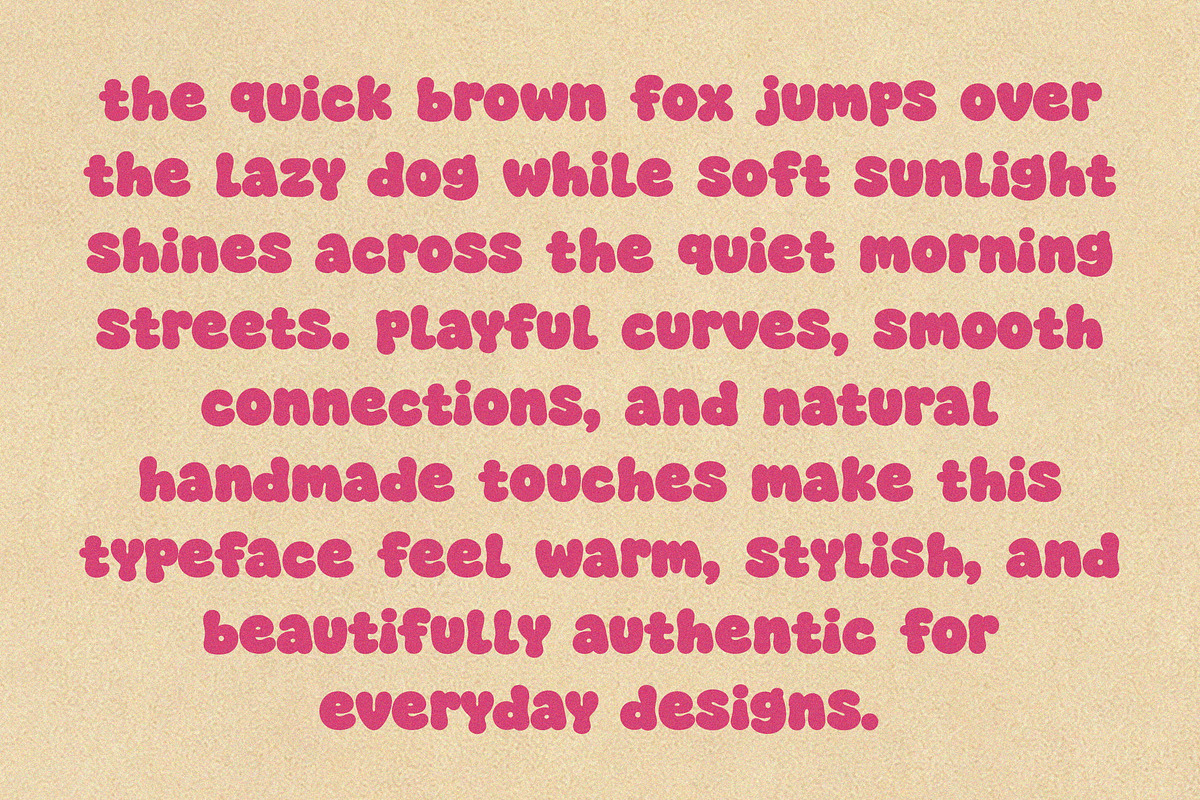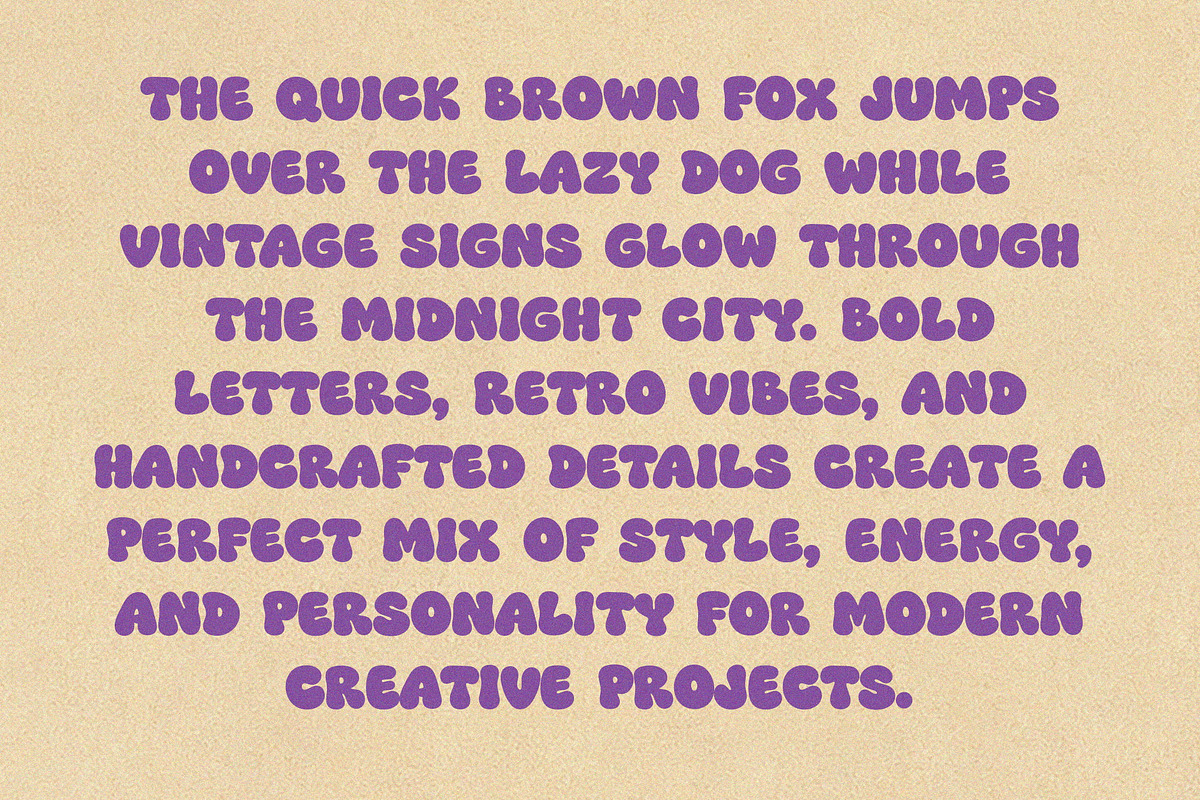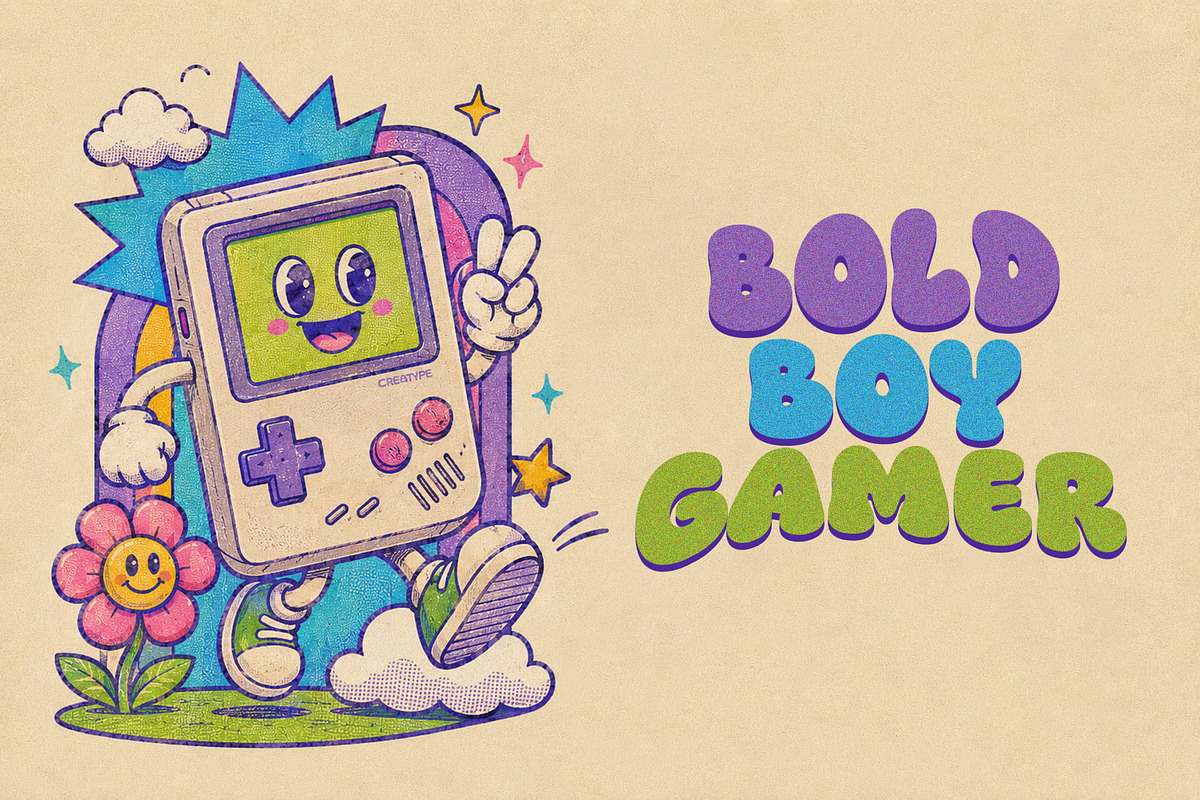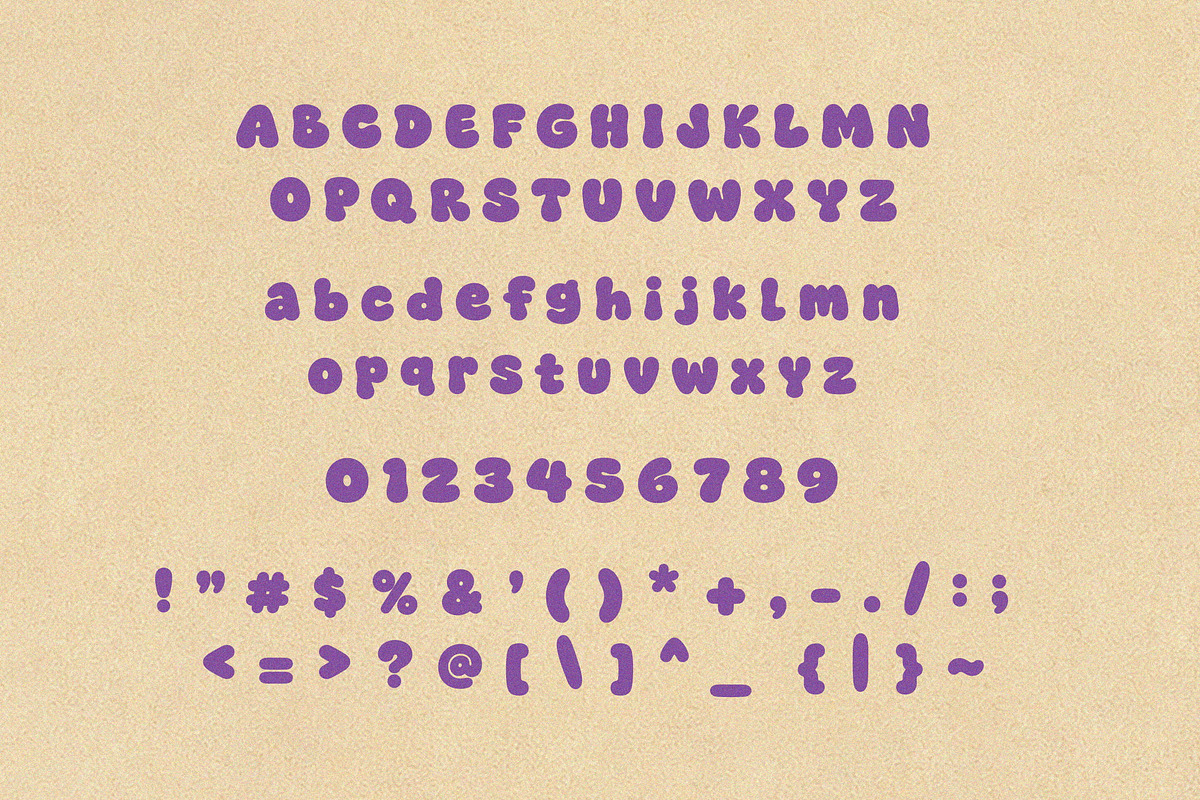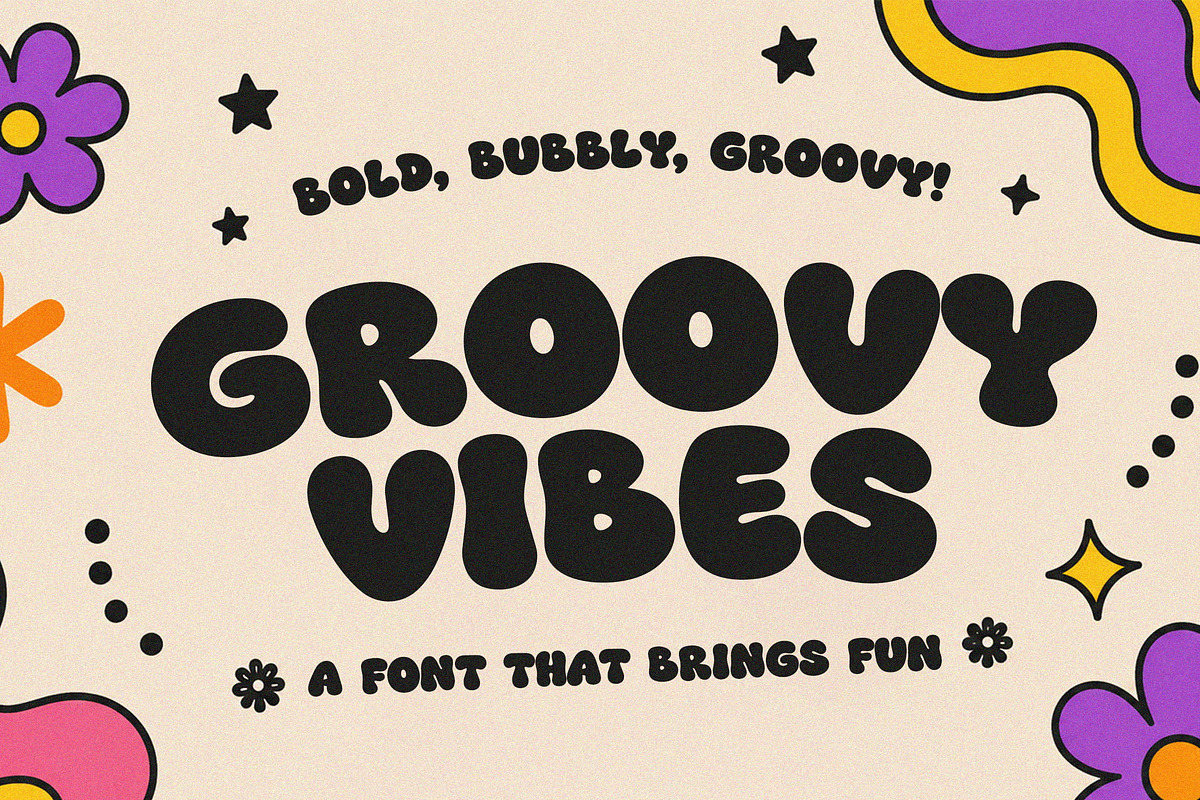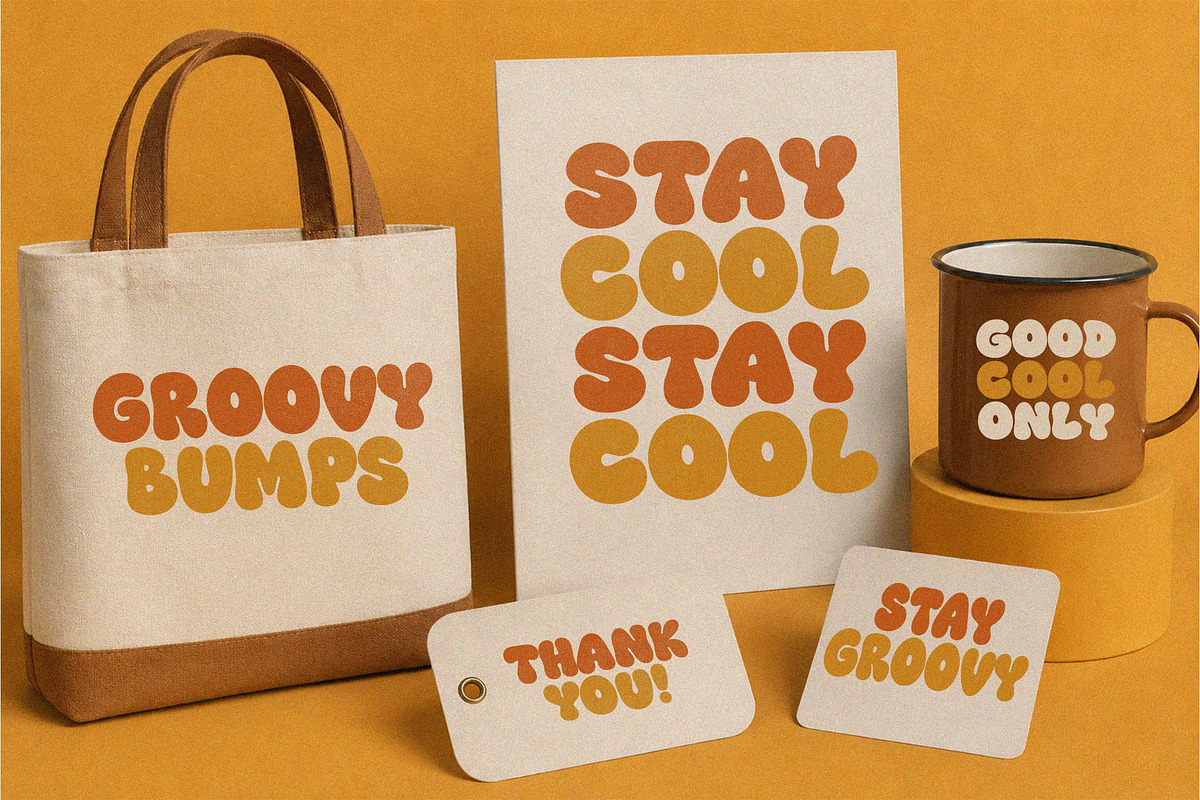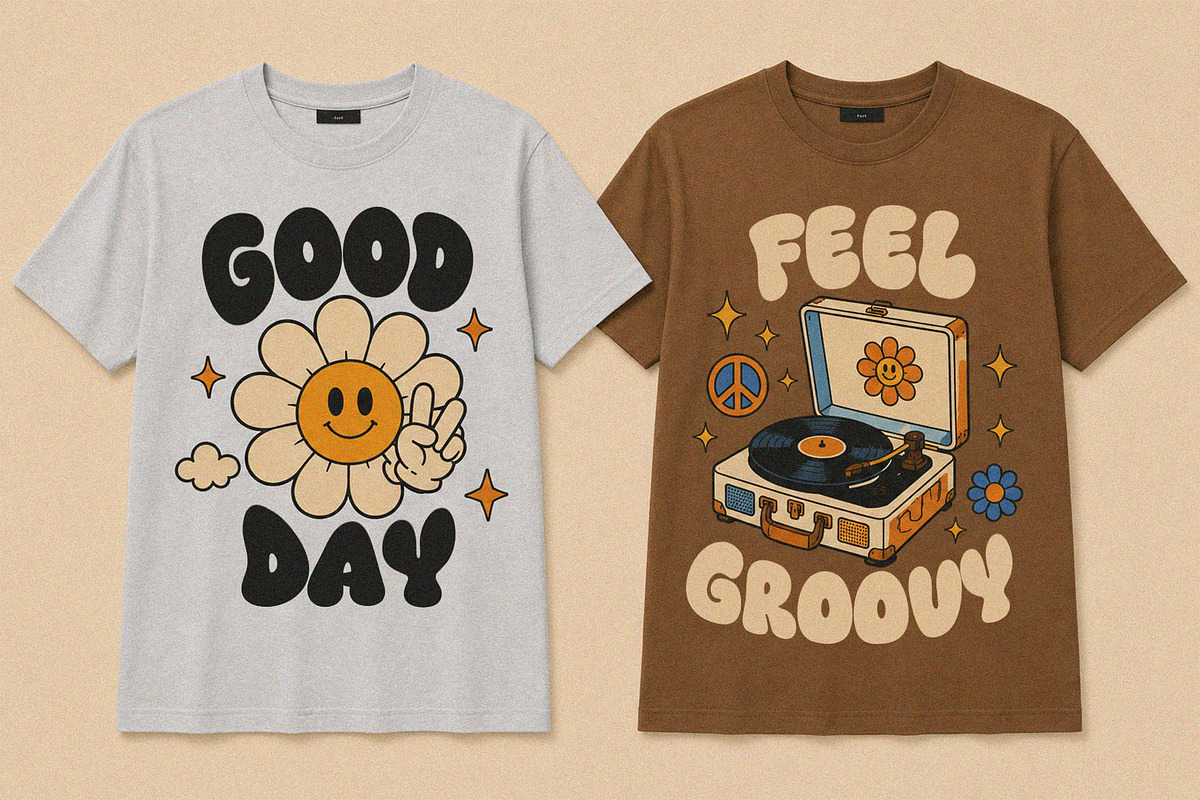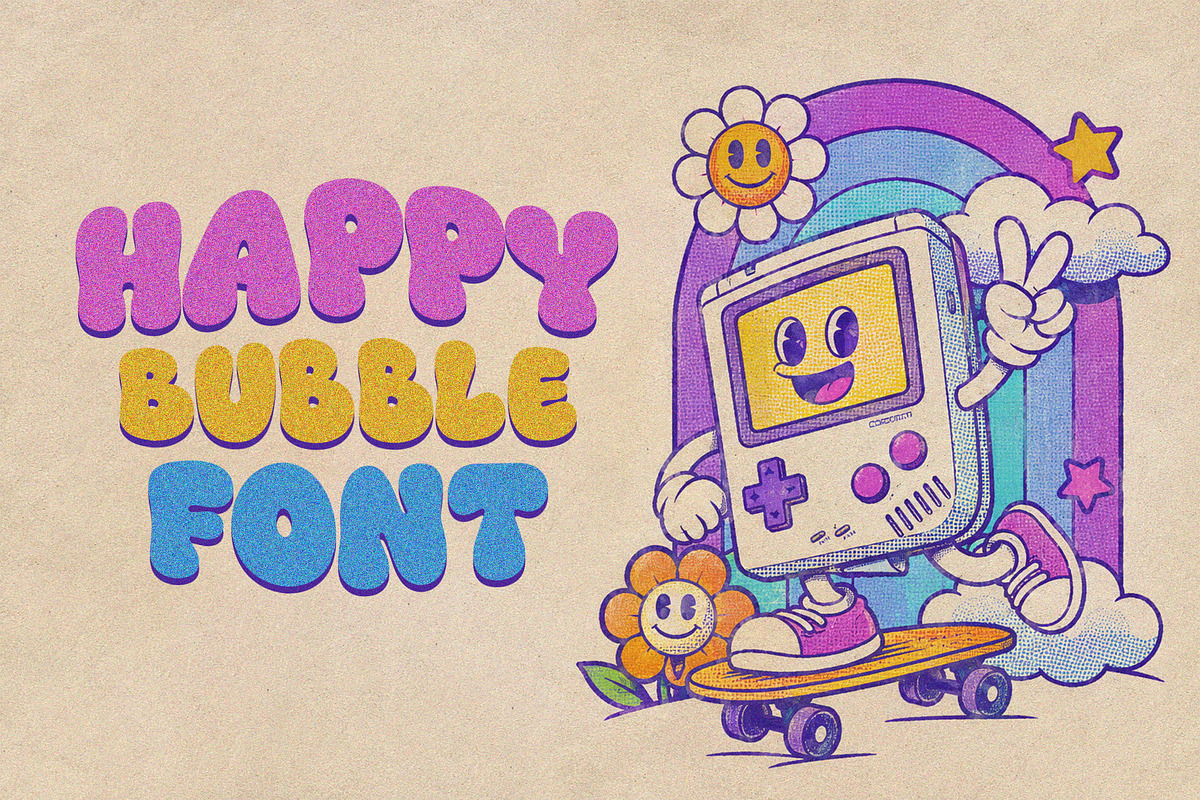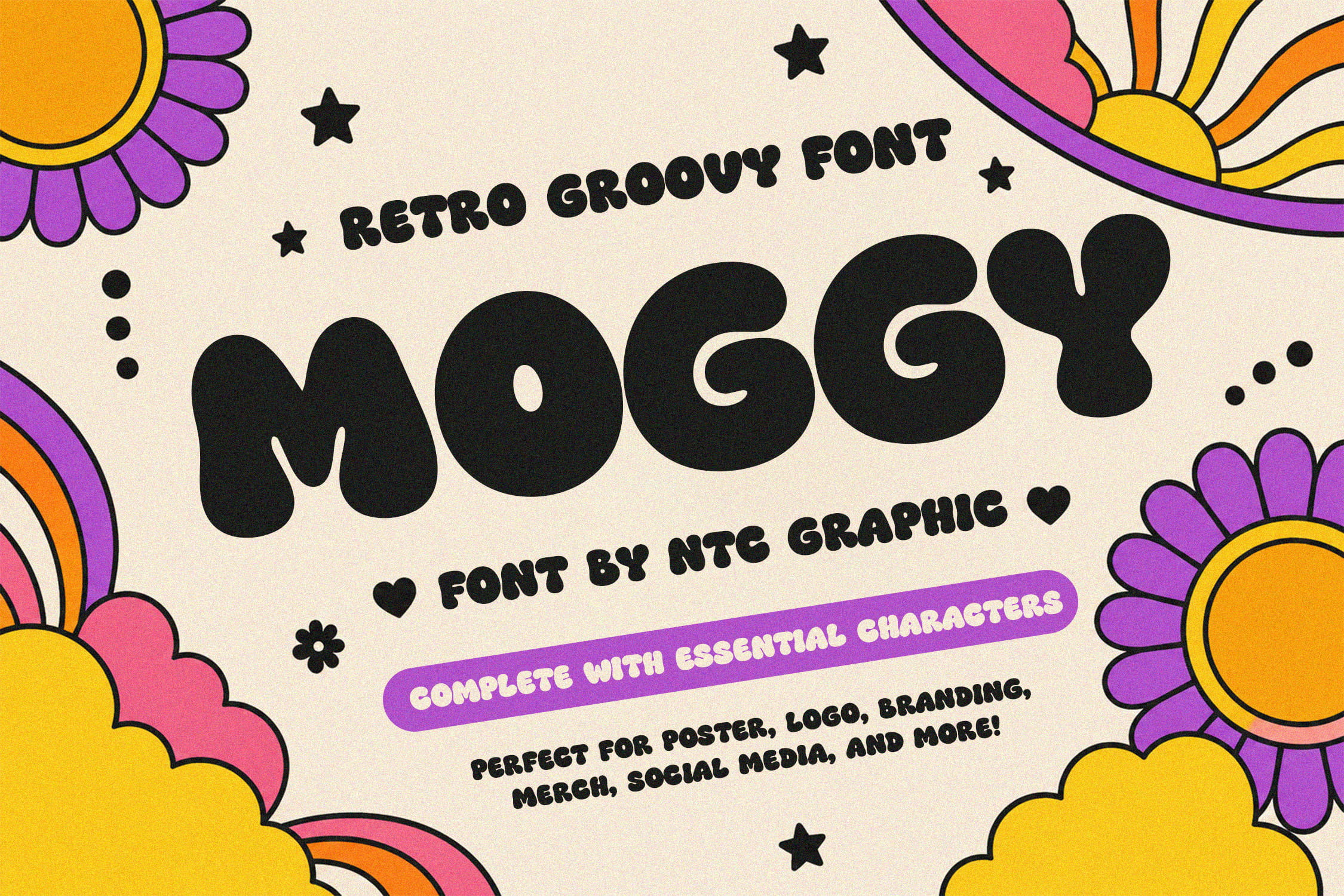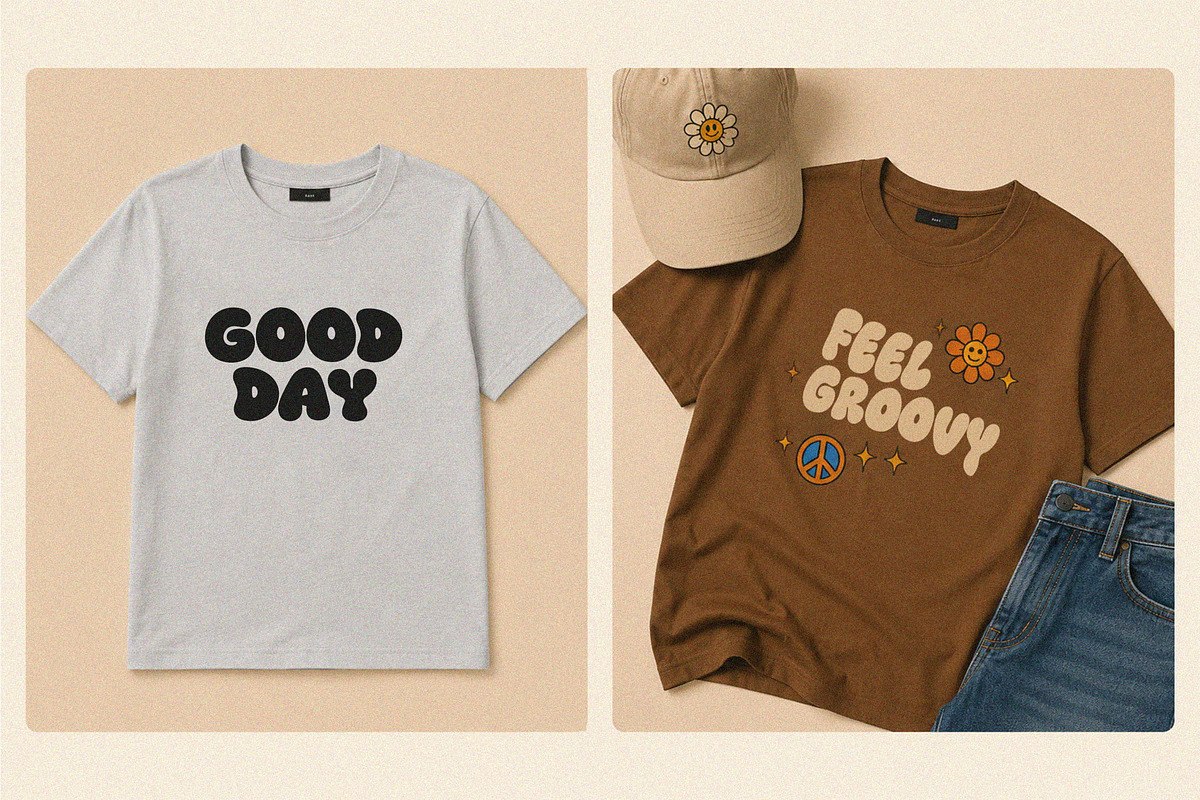
Moggy - Groovy Display Font
Moggy is a playful retro groovy display font inspired by the colorful vibes of the 70s era. Featuring bold, bubbly, and chunky letterforms, this font brings a fun, cheerful, and nostalgic personality to your creative projects.
Designed with smooth curves and funky shapes, Moggy is perfect for designs that need a strong vintage aesthetic with a modern playful twist. Its eye-catching style makes every headline stand out beautifully.
Ideal for poster design, logo creation, merchandise, t-shirt graphics, packaging, social media content, sticker design, and retro-themed branding projects.
Bold bubbly retro letterforms
Fun and groovy display style
Smooth rounded curves
Perfect for vintage & playful branding
Great readability for headlines
Retro & vintage branding
T-shirt & merchandise design
Posters & album covers
Packaging & label design
Kids & playful themed projects
Stickers and apparel graphics